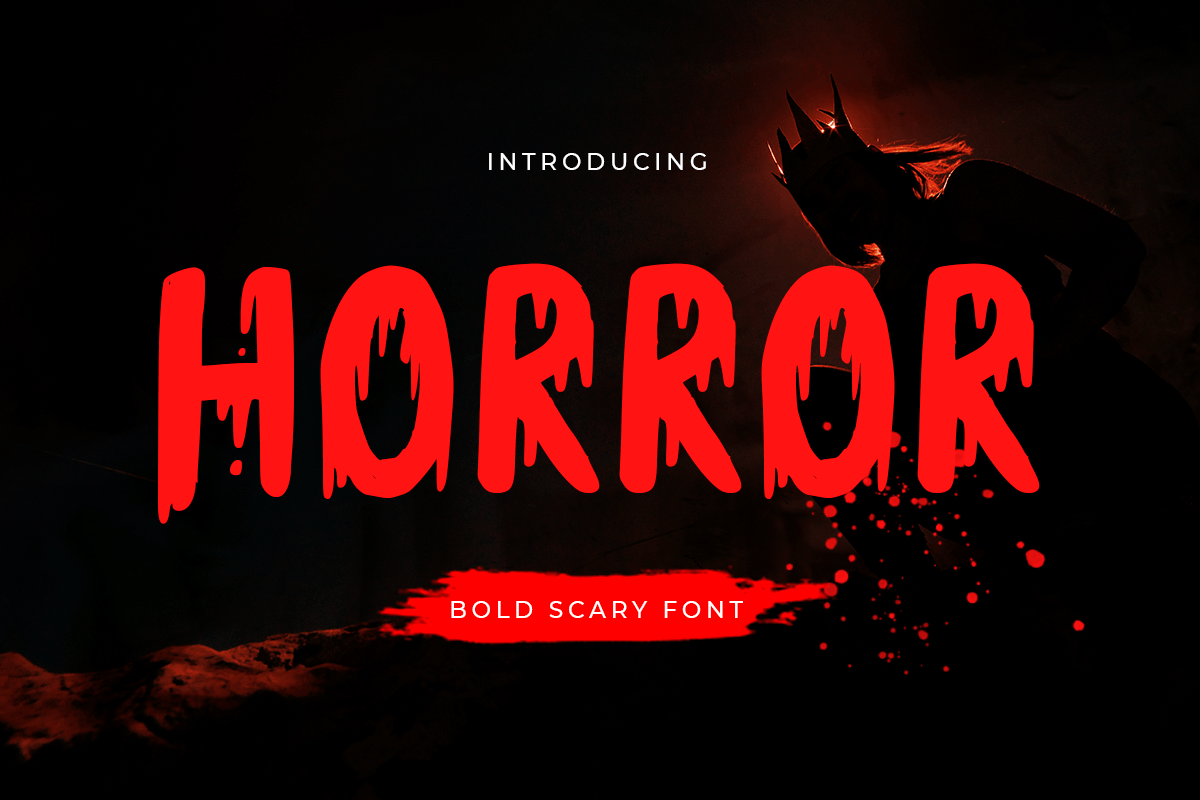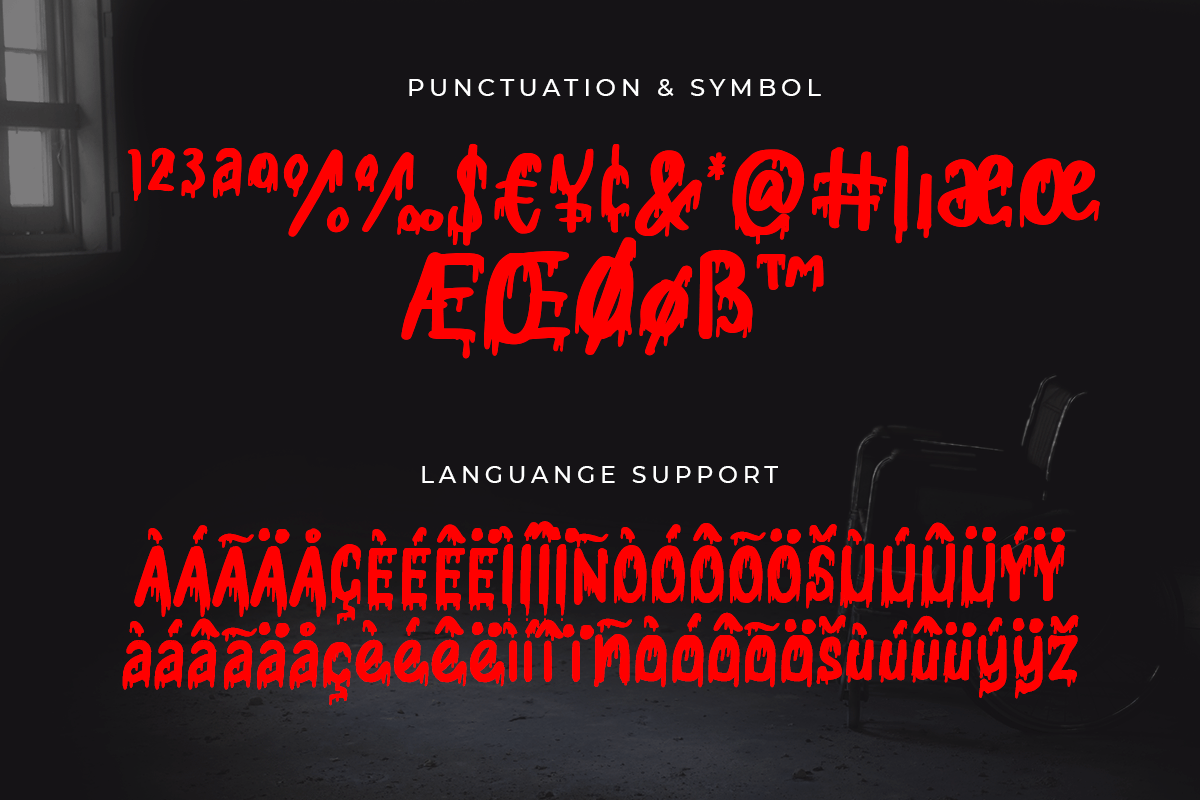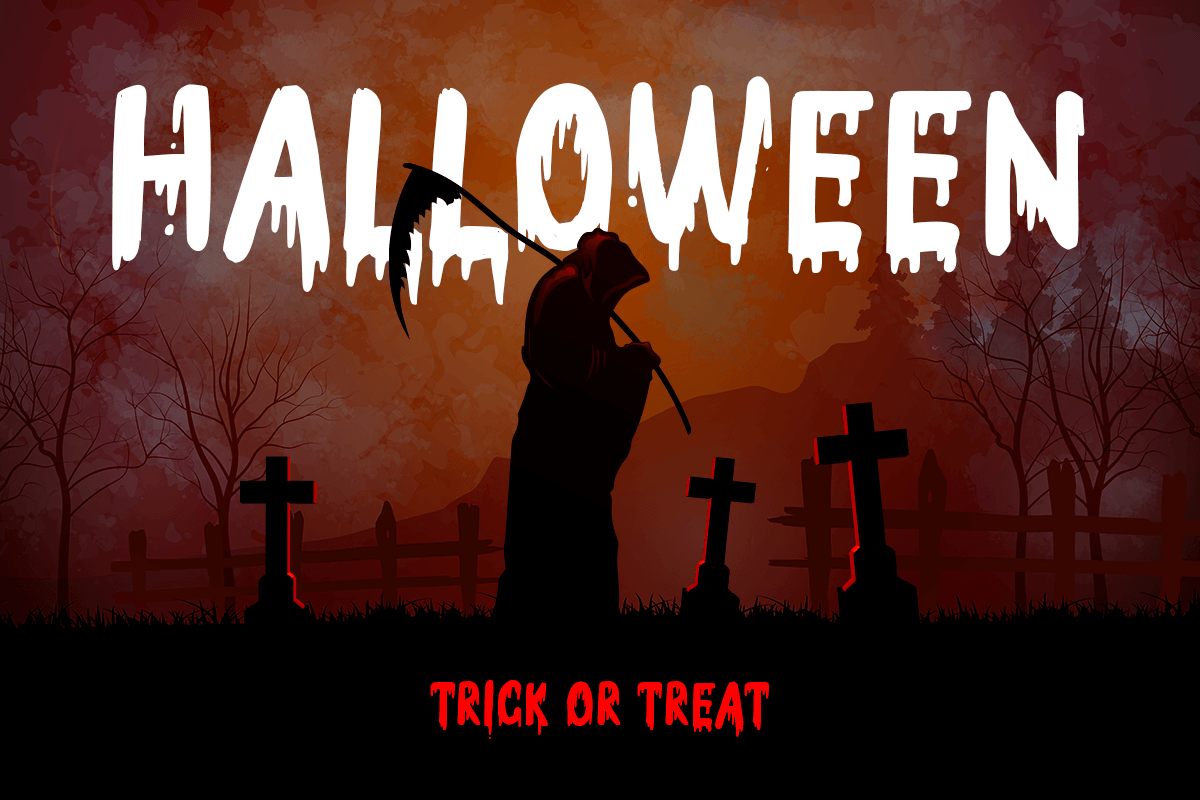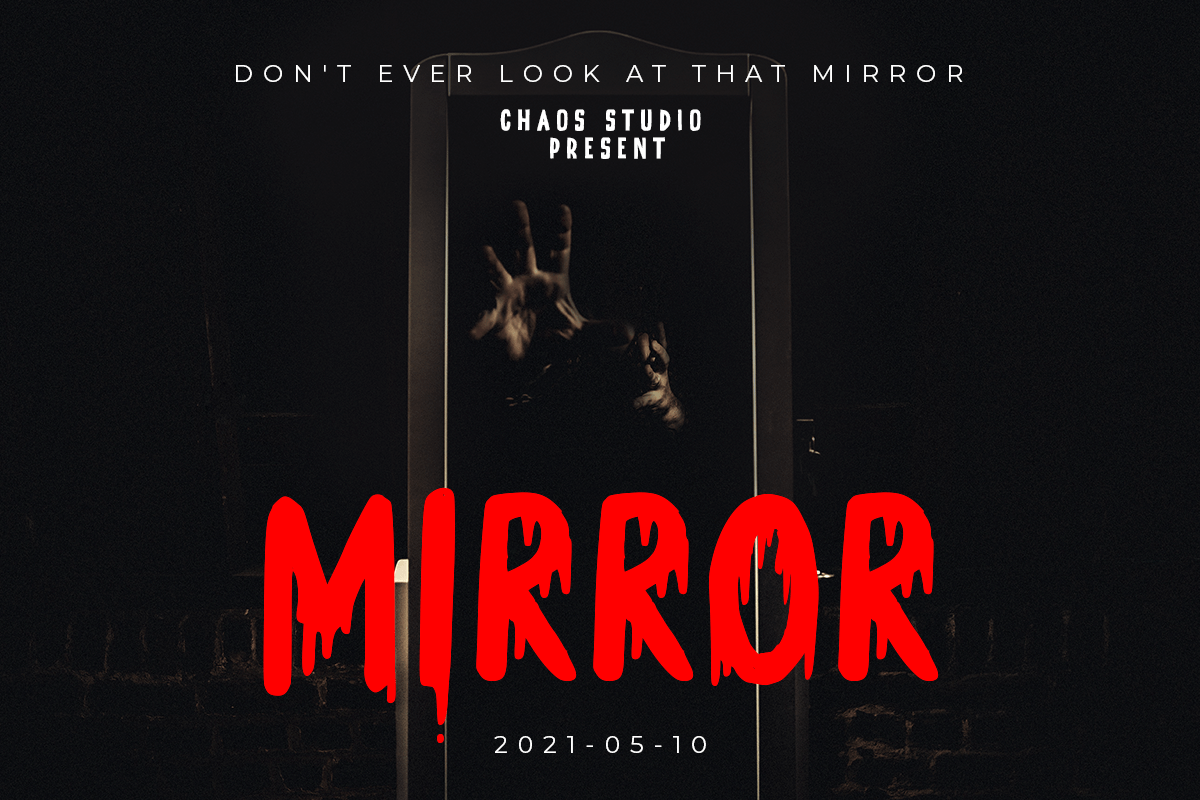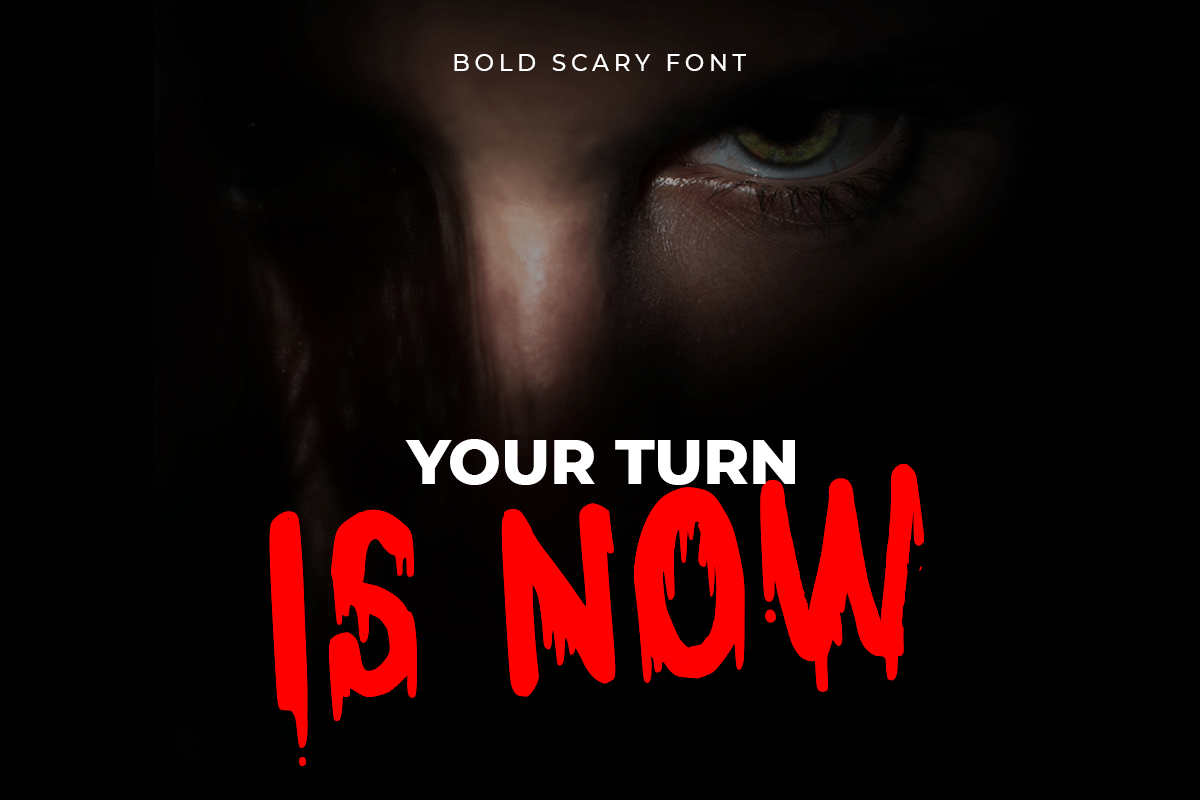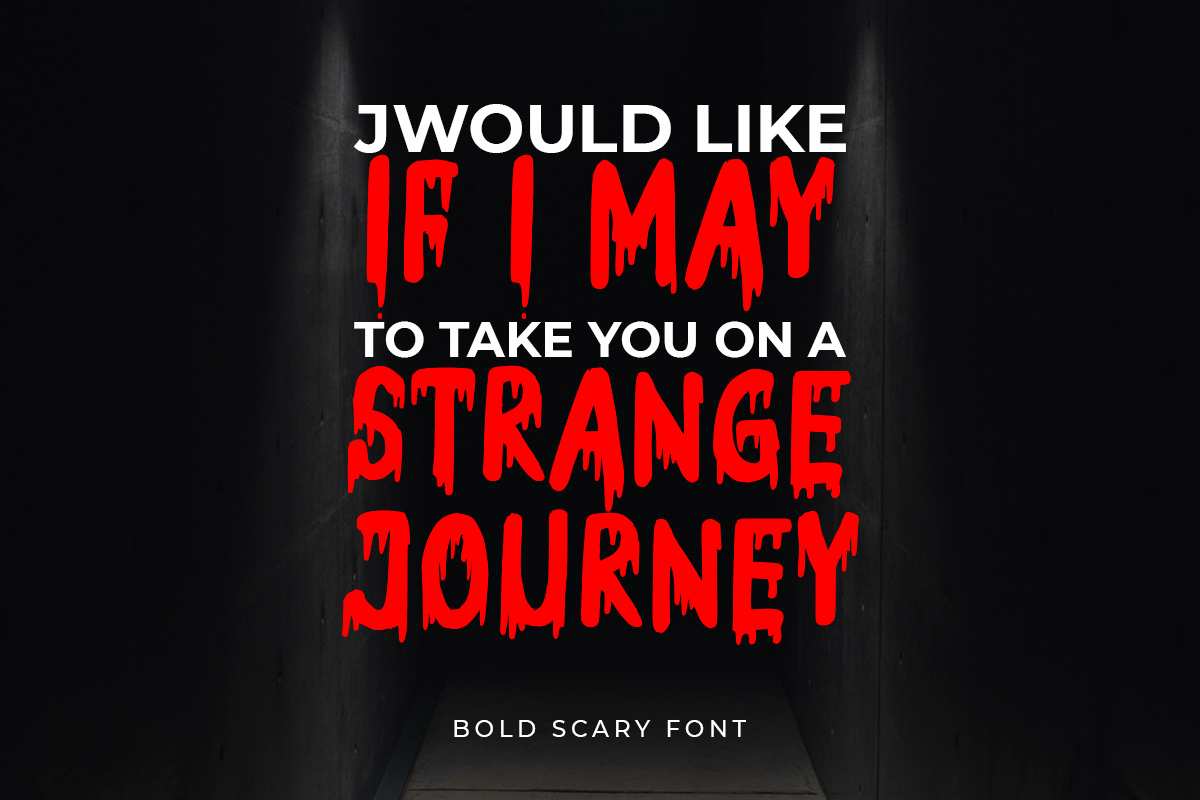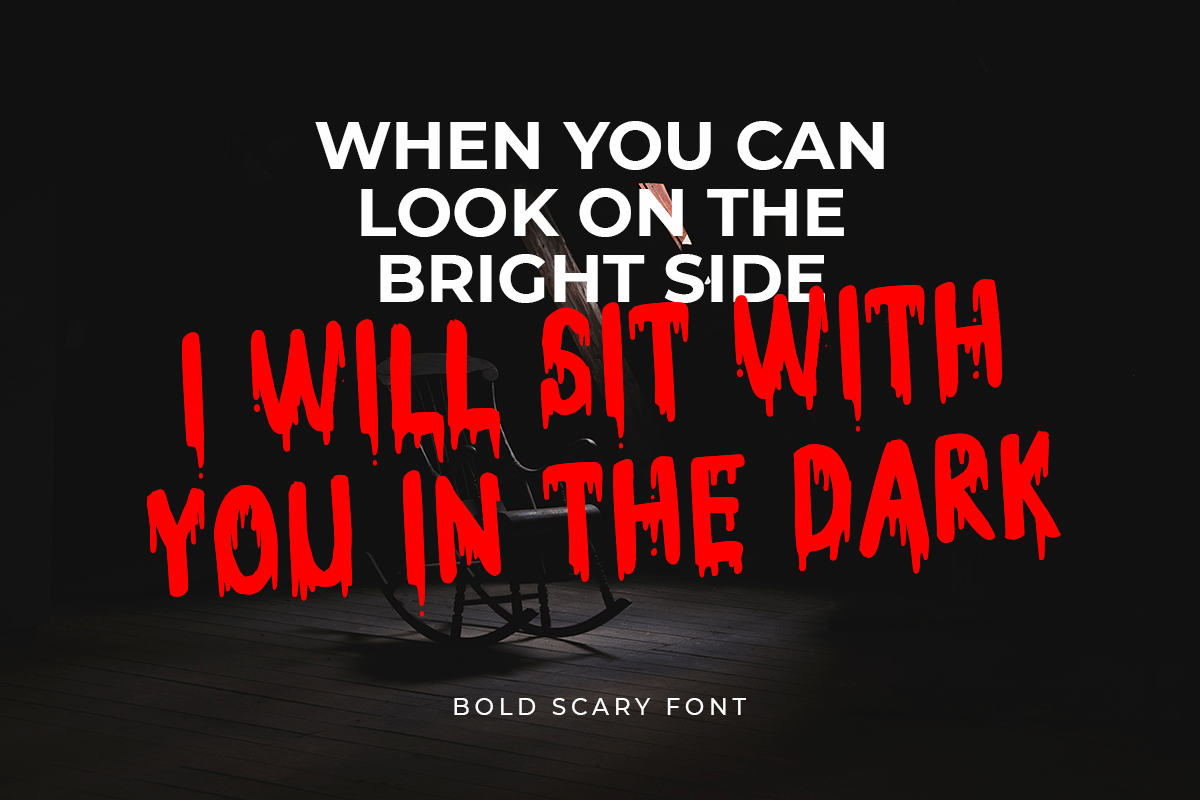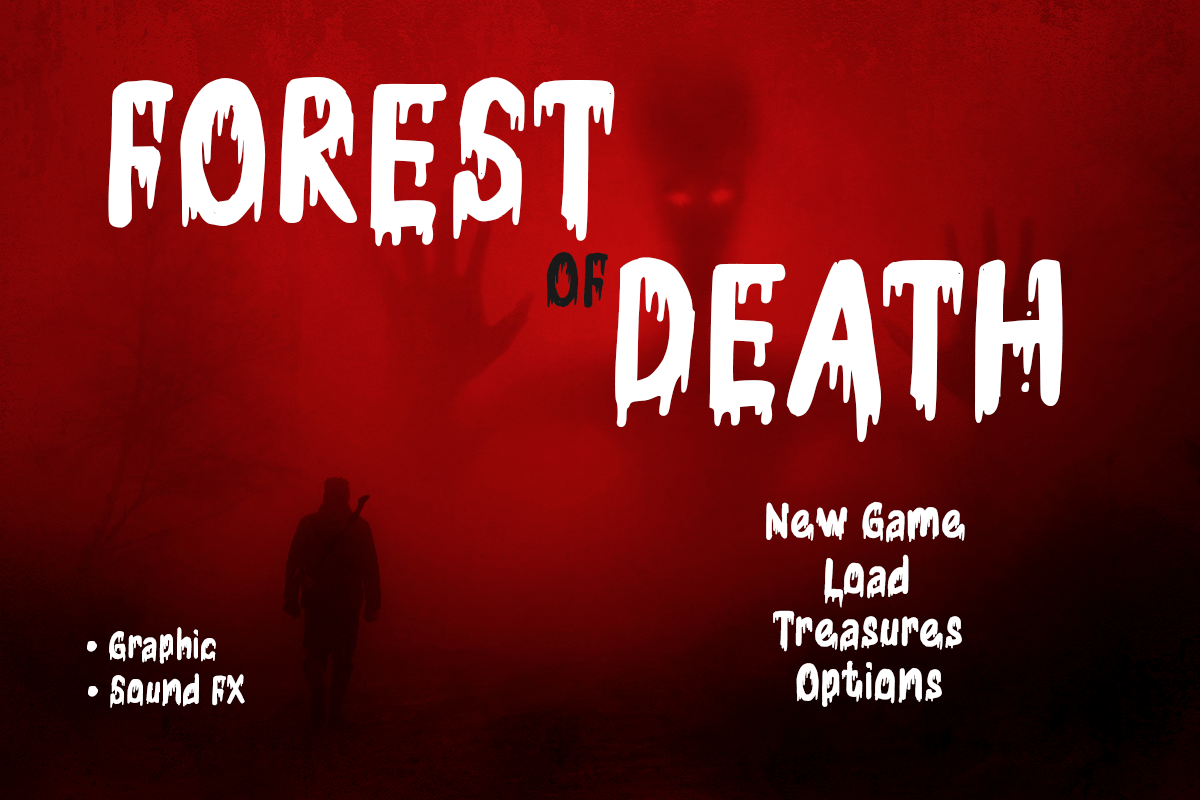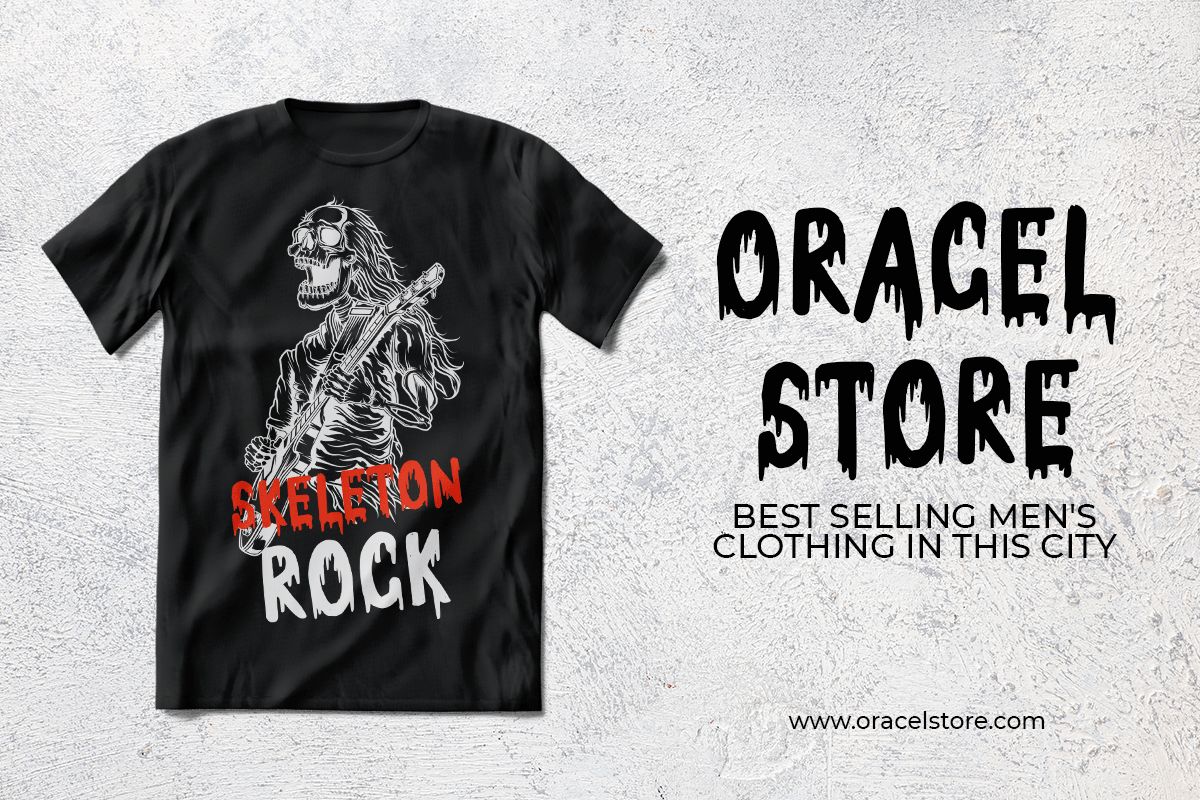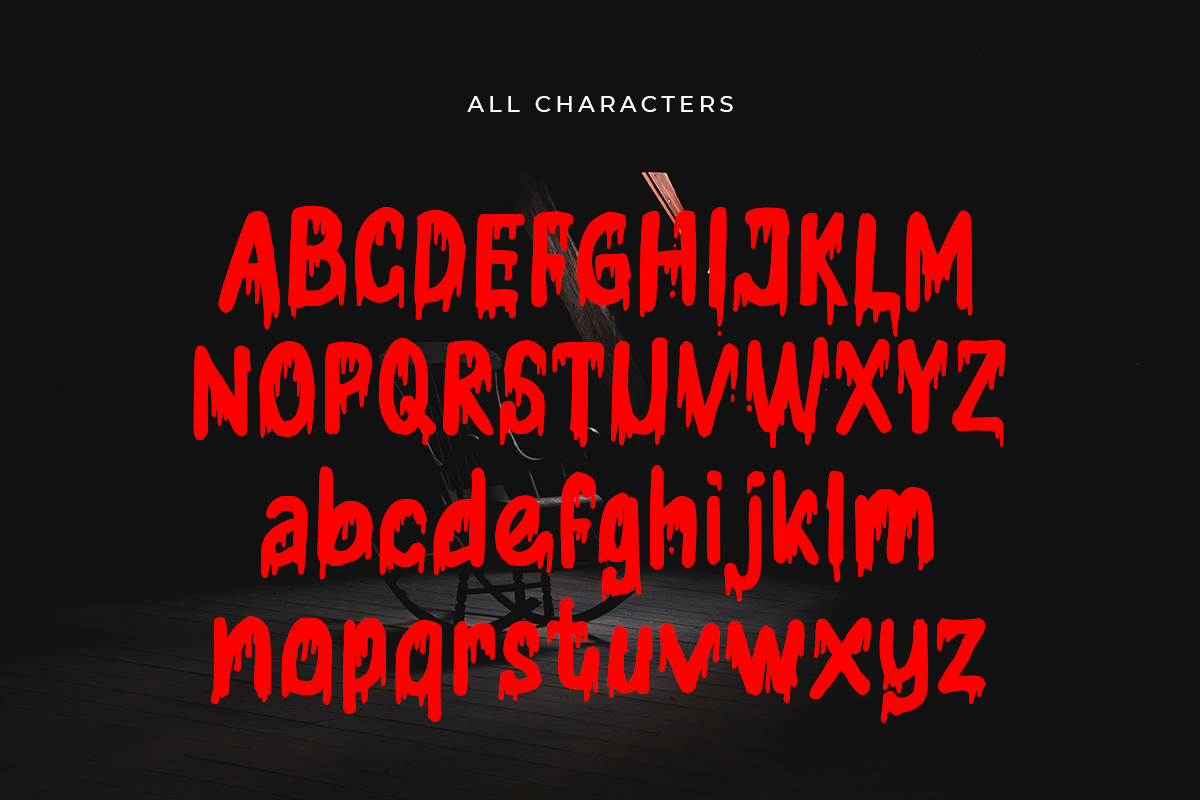
Horror
-Bold Scary Font
Horror
Horror is a Bold font that's have a Scary touch perfect for Halloween, Poster, Merchandise, etc. Crafted specially to make your design stand out and have scary-feel with more funny shapes and enjoy to explore.
Enjoy to Design any your needs with quirky, unique, and scary feel.